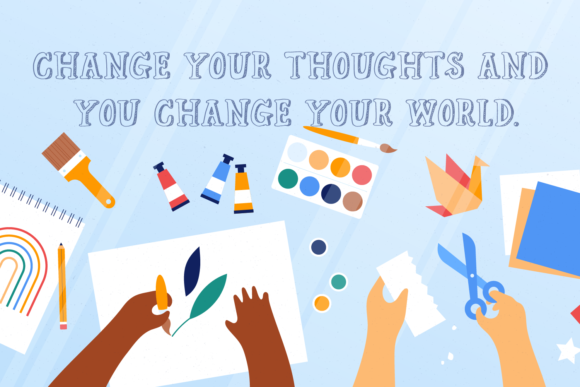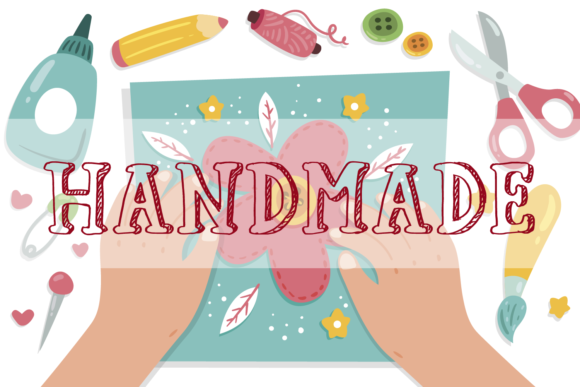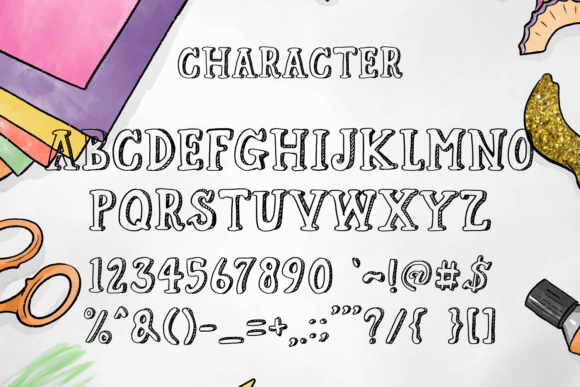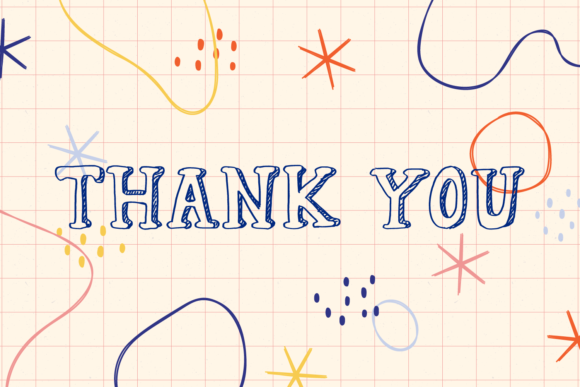
The Perfect Font for Little Creatives
Do you remember the first time you picked up a crayon and created something truly unique? The feeling of freedom and excitement that came with bringing your imagination to life? For designers, finding the right font can evoke a similar sense of joy and creativity. Introducing Big Craft Font, a cute, cool, and quirky-looking serif font that embodies playfulness and authenticity.
Big Craft Font is the perfect choice for any children’s activity or school project, adding a touch of whimsy and personality to your designs. But its value extends beyond just its aesthetic appeal. For designers, Big Craft Font offers a unique opportunity to tap into the imagination and creativity of their audience, making it an invaluable tool for anyone looking to create engaging and memorable content.
Big Craft Font Key Features
- Unique Characteristics: Big Craft Font features a distressed, hand-crafted look with irregularities and imperfections, giving it a unique and eye-catching appearance.
- Font Style: The font is available in both uppercase and lowercase letters, with a range of punctuation and special characters.
- Legibility: Despite its distressed appearance, Big Craft Font is highly legible and easy to read, making it suitable for a wide range of design applications.
Big Craft Font Review
Overall, I was really excited to dive into Big Craft Font. As a designer, I’m always on the lookout for unique and eye-catching fonts to add some personality to my projects. ✨ Here are a few things that worked well for me:
- Big Craft Font is definitely bold and playful, making it perfect for projects that need a fun and quirky vibe.
- The font has a great level of expressiveness, with a lot of character in the letterforms.
- The font is also highly legible, even at smaller sizes, which is a must-have for any font.
However, there are a few limitations that kept me from falling head over heels for Big Craft Font: ⚠️
- The font can feel a bit overwhelming if used too extensively – it’s definitely a font that should be used in moderation.
- The font’s boldness can make it difficult to read at a glance, especially for users with visual impairments.
Overall, I think Big Craft Font is a great addition to any designer’s toolkit, but it’s not without its limitations. With a bit of restraint and consideration for the user, Big Craft Font can add a lot of personality to your projects. I’d recommend it for projects that need a fun and playful vibe, but be mindful of the potential drawbacks.
Big Craft Font is perfect for crafting and handmade-themed designs, such as invitations, party decorations, and DIY projects.
Tips for getting the most out of Big Craft Font include:
– Use it sparingly for emphasis, as it’s a bold font.
– Pair it with other fonts for contrast and visual interest.
– Experiment with different font sizes and colors to achieve the desired look.